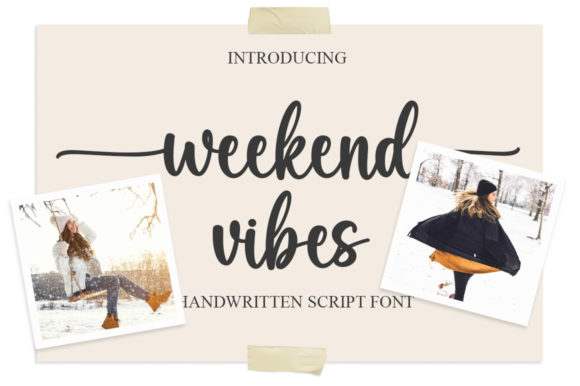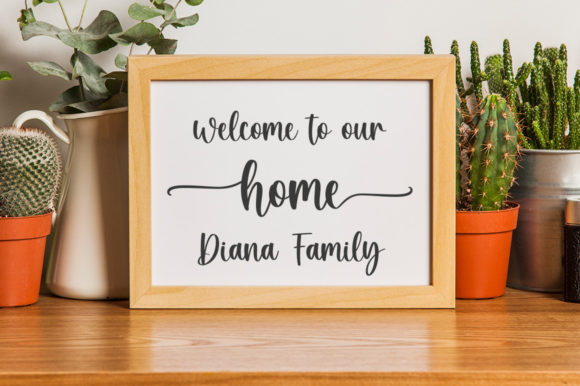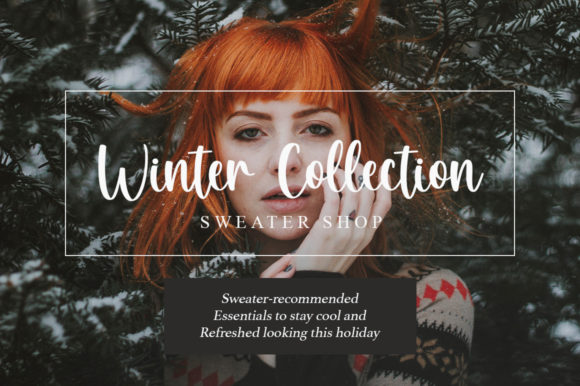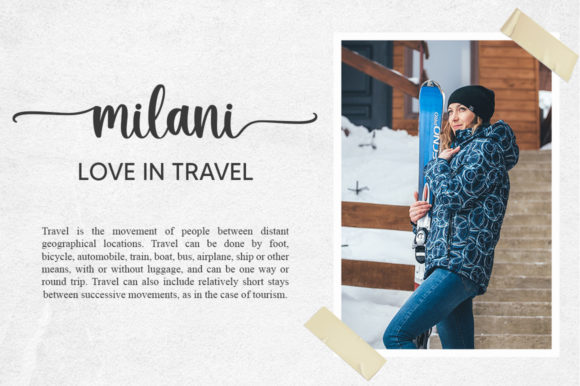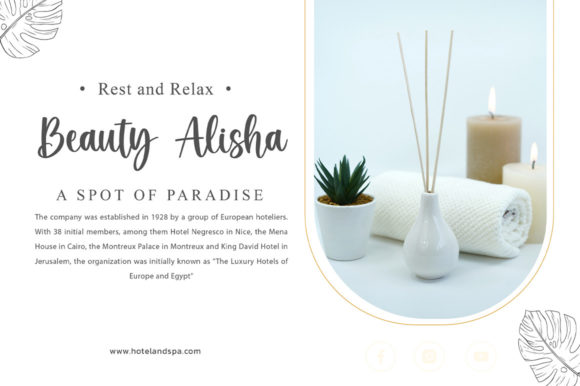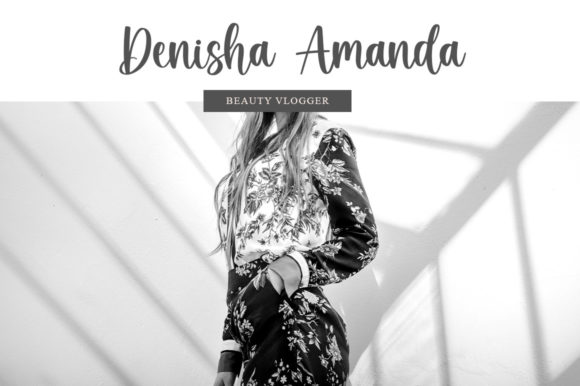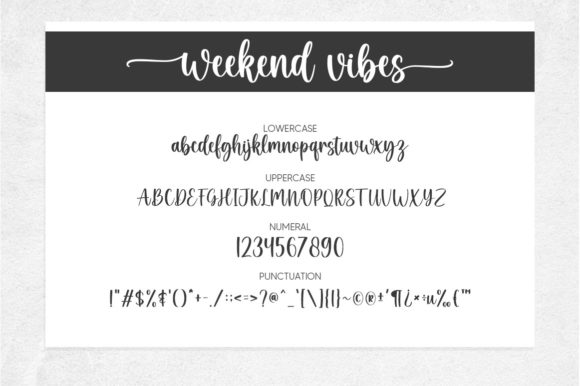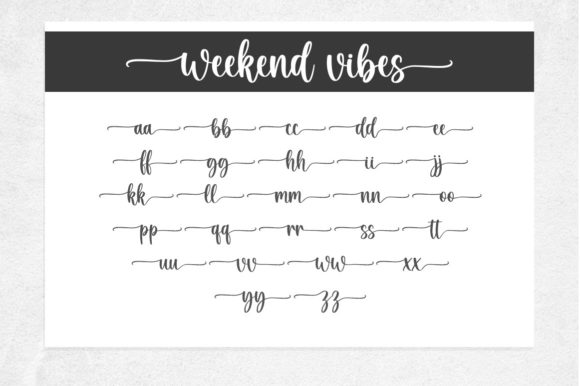
Weekend Vibes Font
About Weekend Vibes Font
Weekend Vibes is a lovely script font featuring charming, playful characters that seem to dance along the baseline. This font is PUA encoded which means you can access all glyphs and swashes with ease!